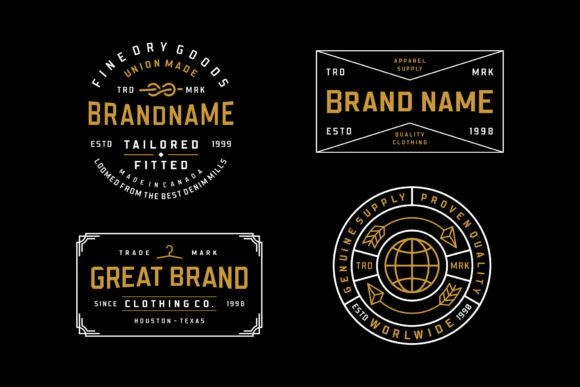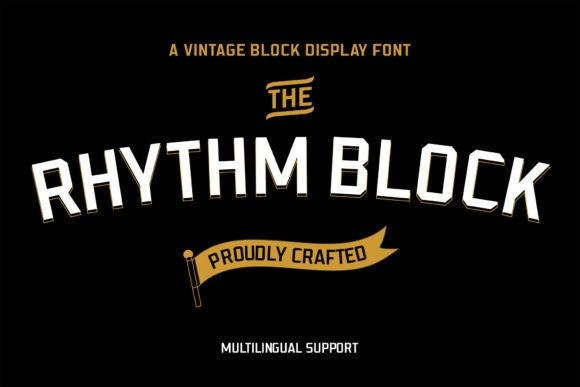
Rhythm Block Font
Rhythm Block Font is a vintage block sanserif display font. it nice for vintage typography design for logotype, insignia, vintage badge, vintage and old fashioned label design etc. Rhythm Block would be nice for any design project